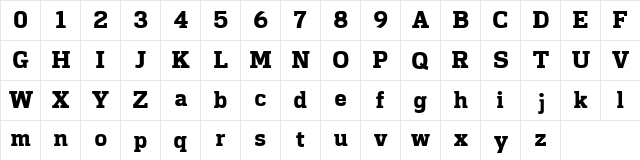
NFL Regular
Design Context for NFL Typeface
NFL takes a measured approach to typography — its balanced proportions and neutral character make it a reliable workhorse for both digital and print work.